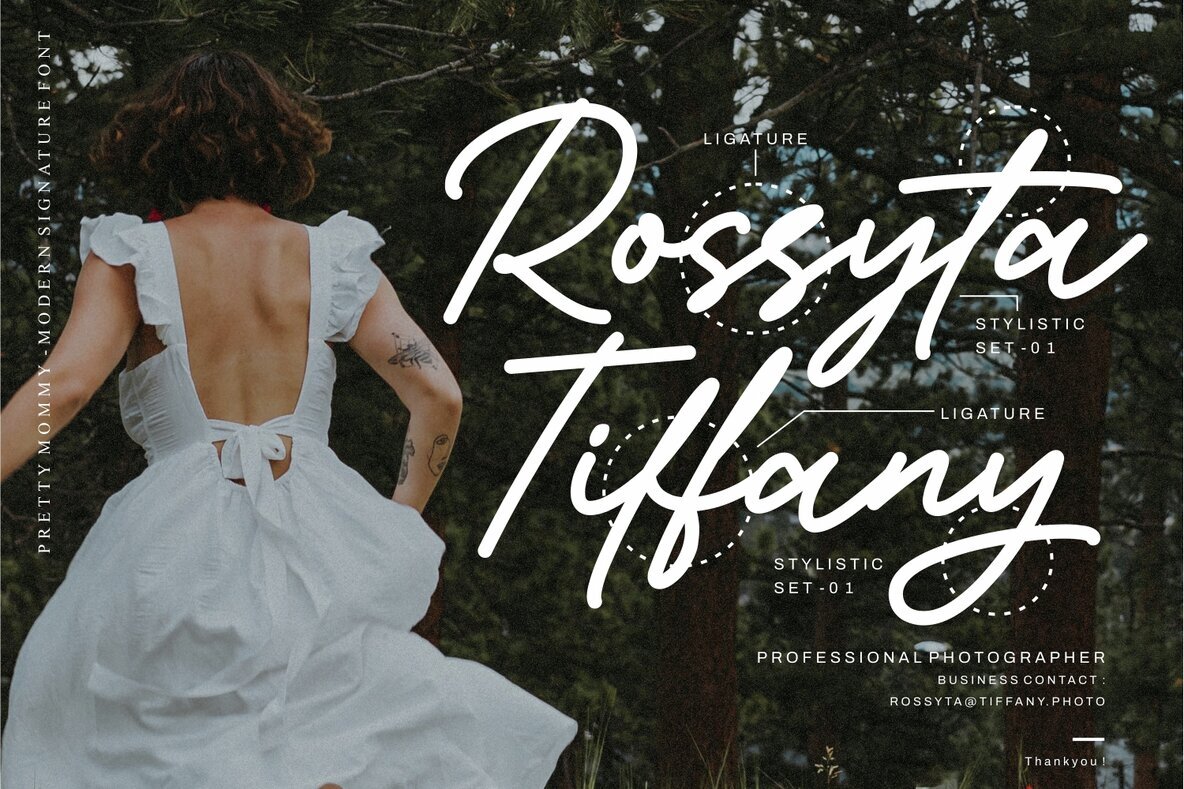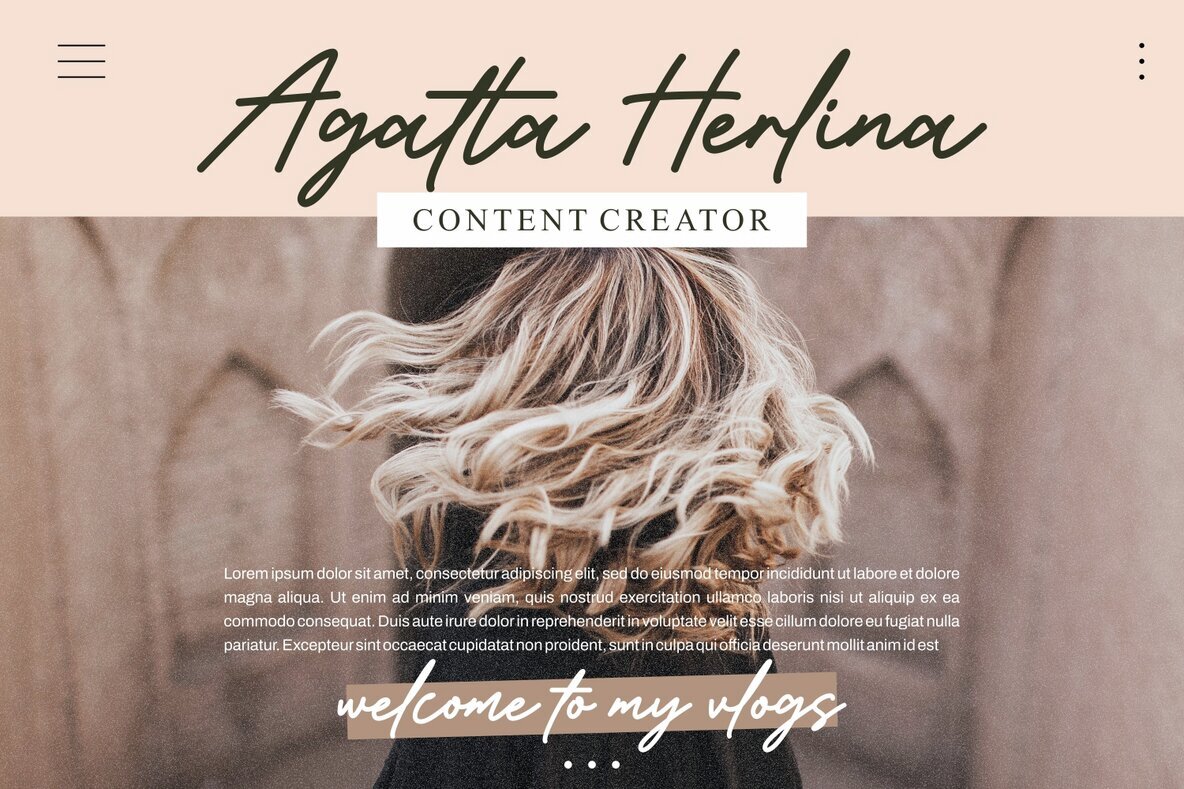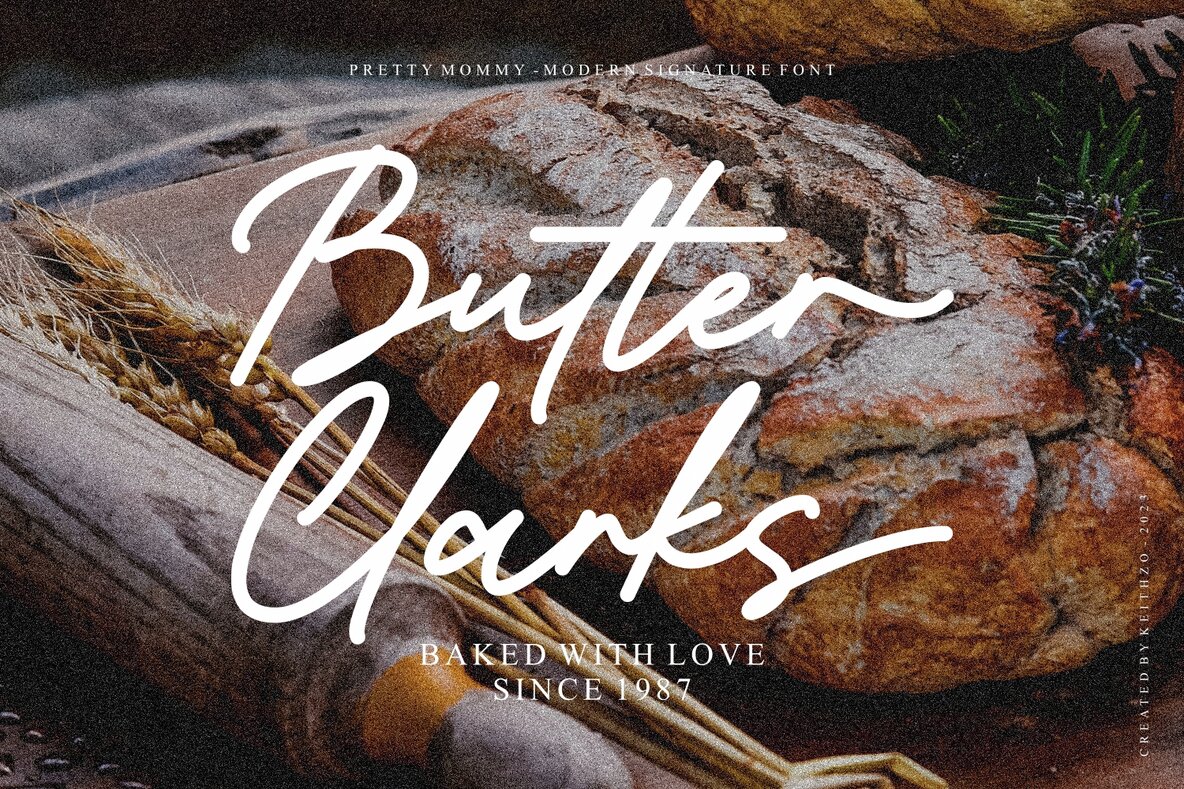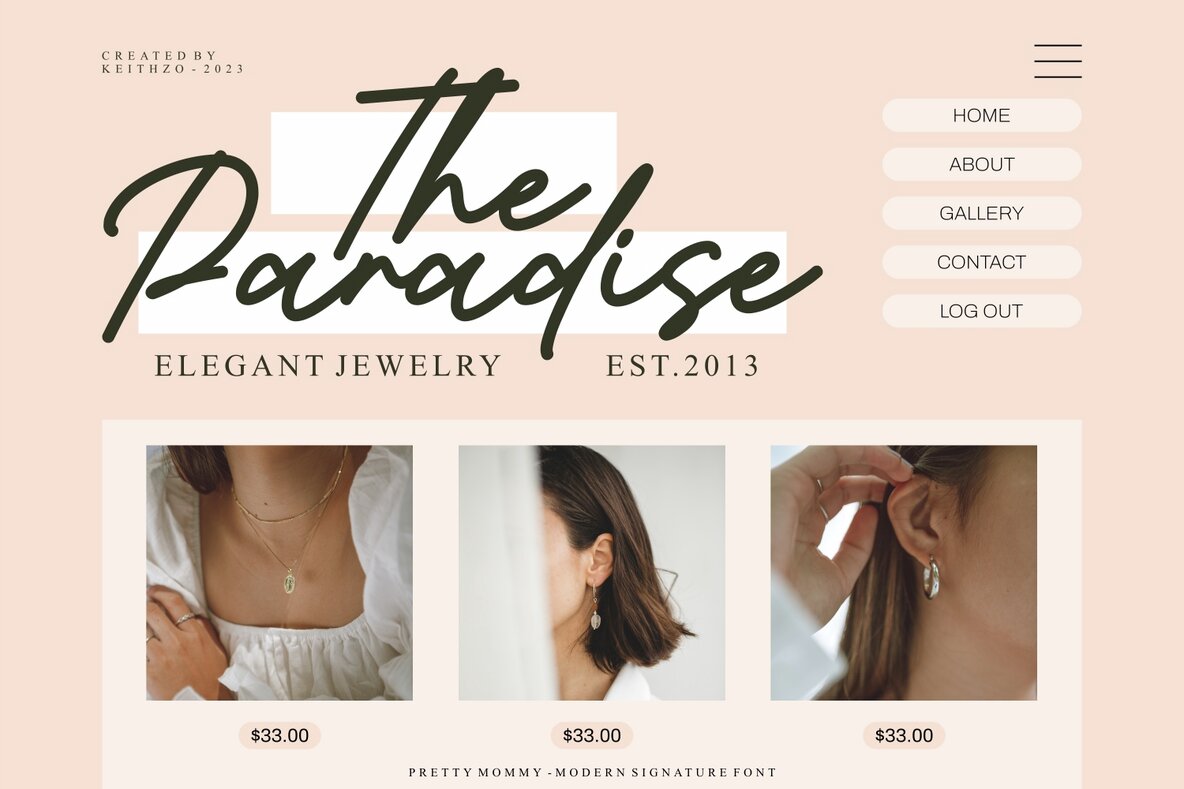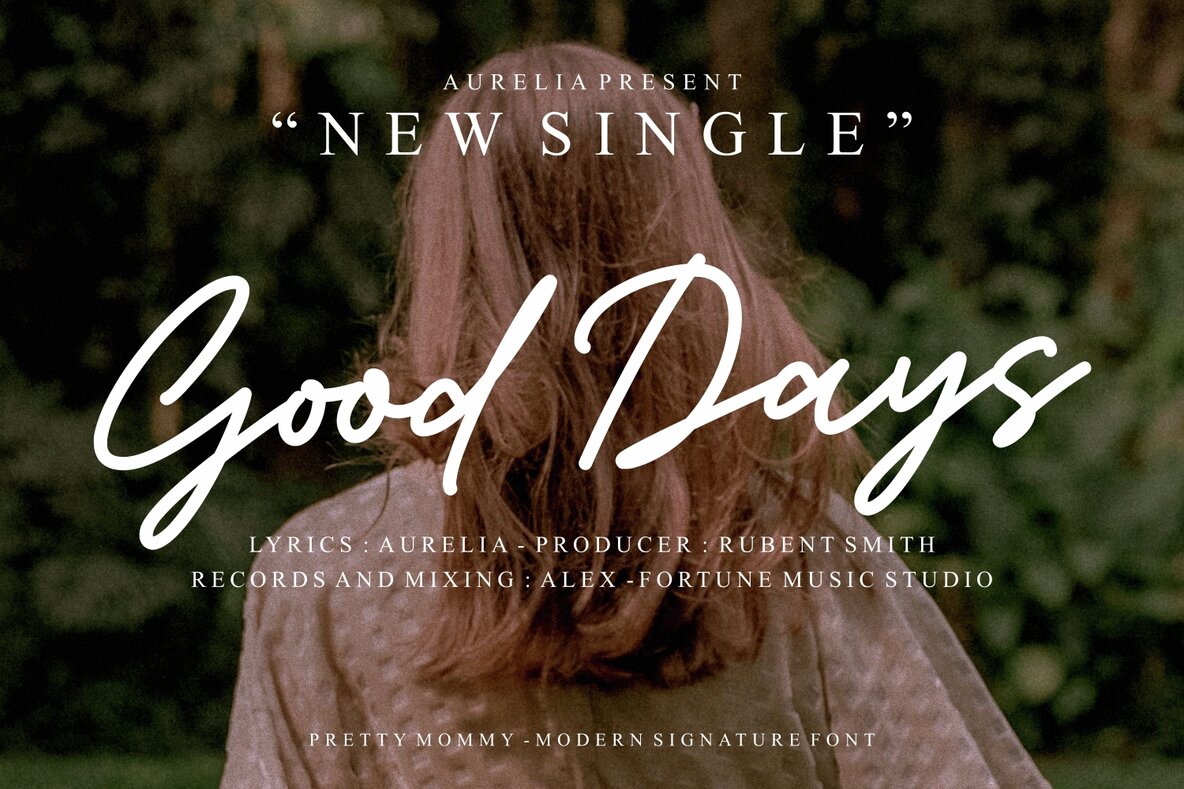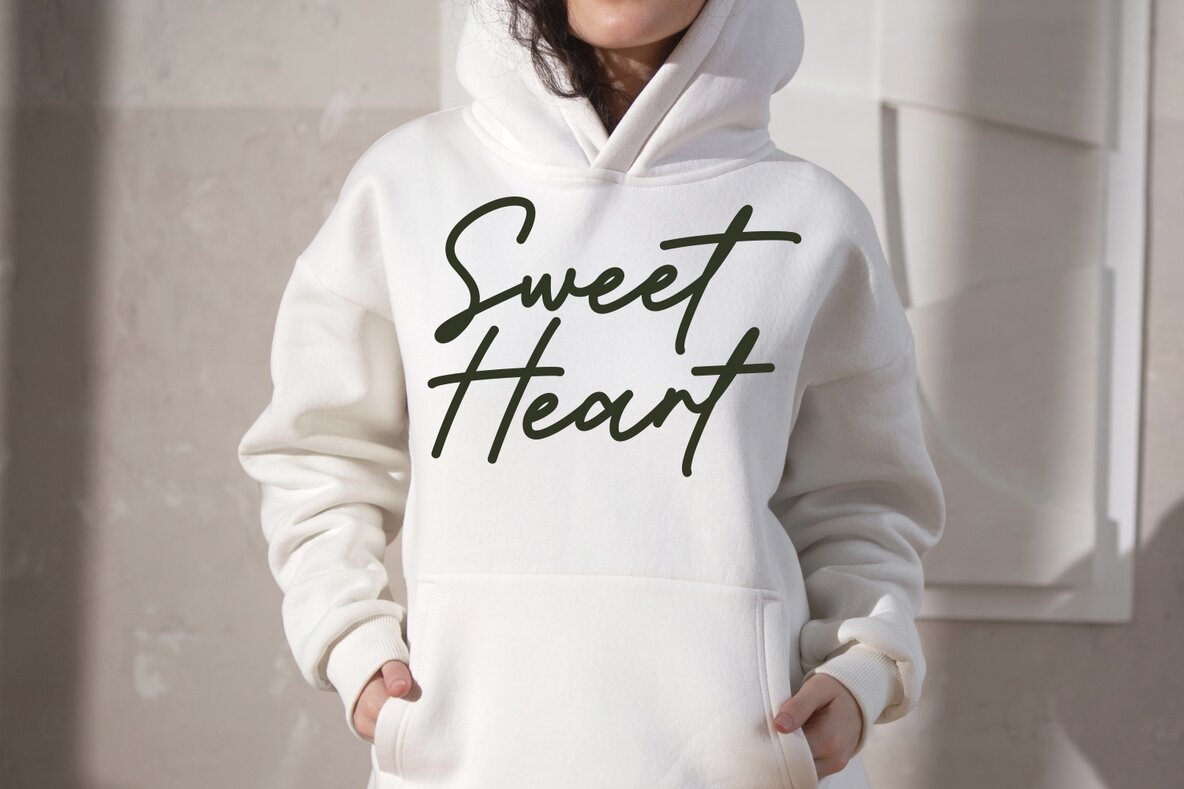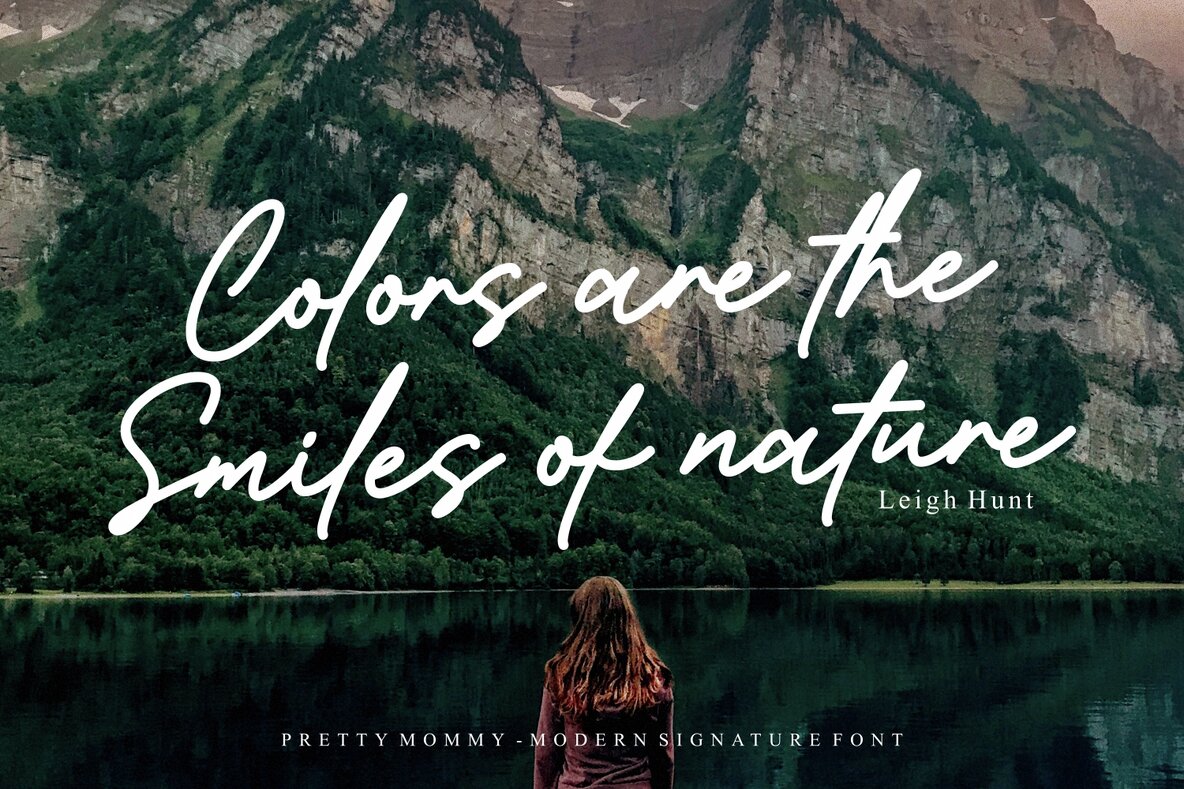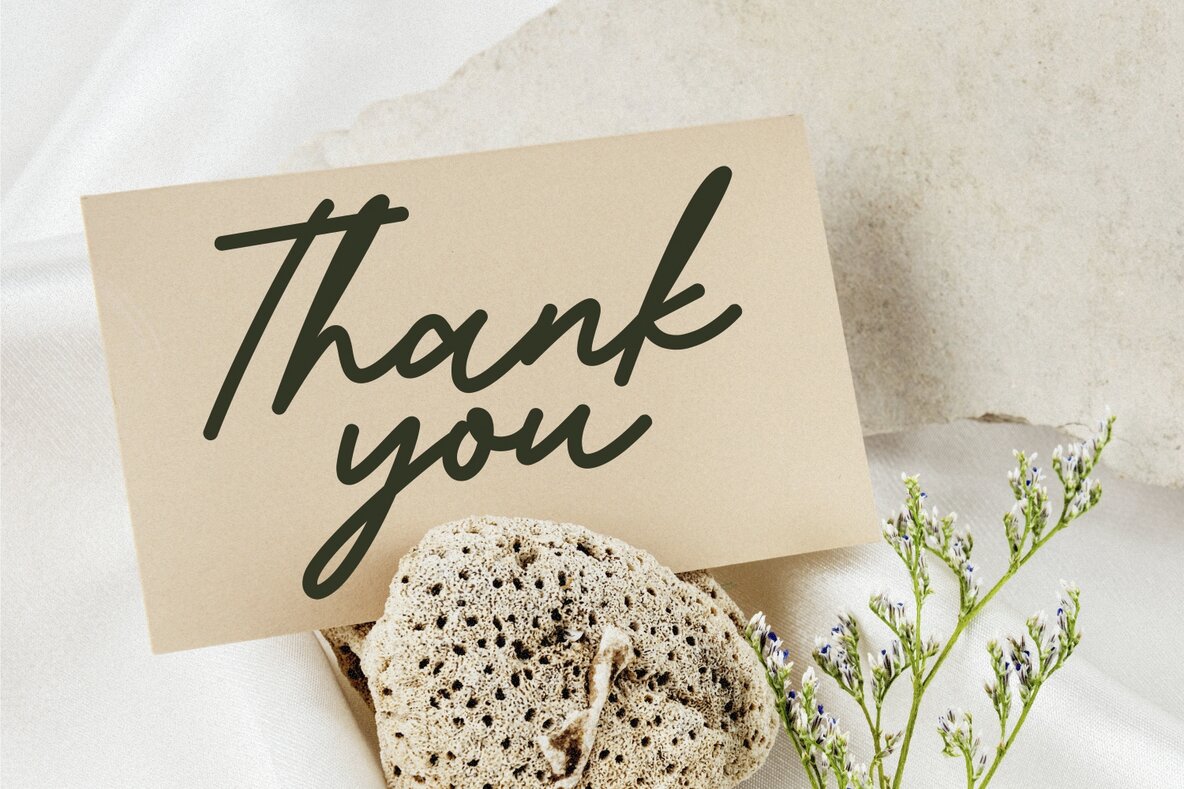
Pretty Mommy Font
Pretty Mommy
Pretty Mommy feels evenly charming and deluxe. It looks astounding on wedding invitations, thank you cards, quotes, greeting cards, logos, business cards, and every other design which needs a handwritten touch. It is also PUA encoded which means you can access all of the glyphs and swashes with ease!